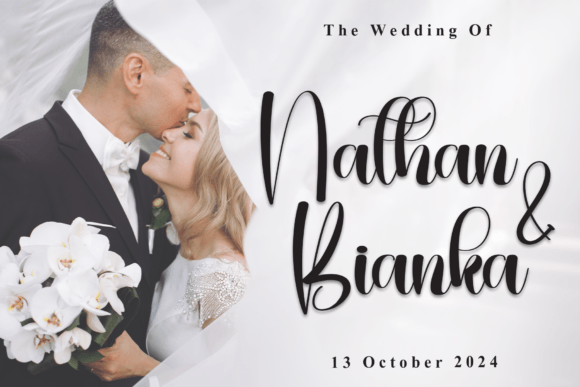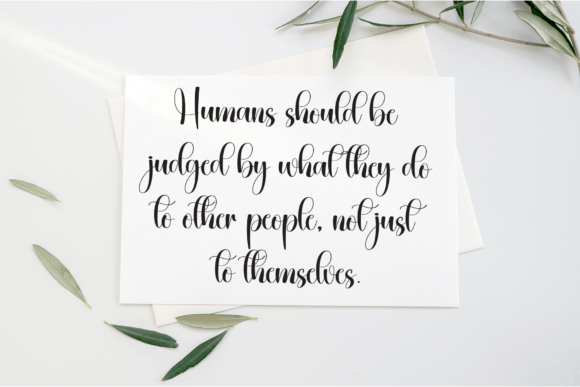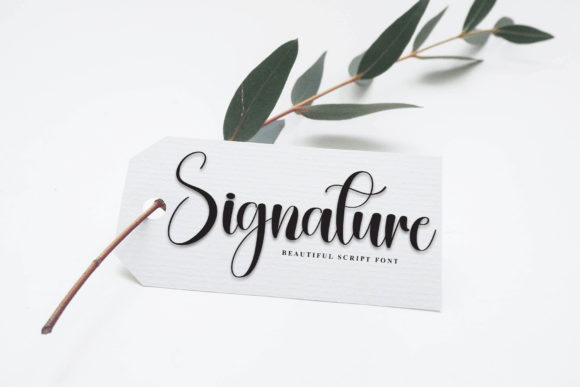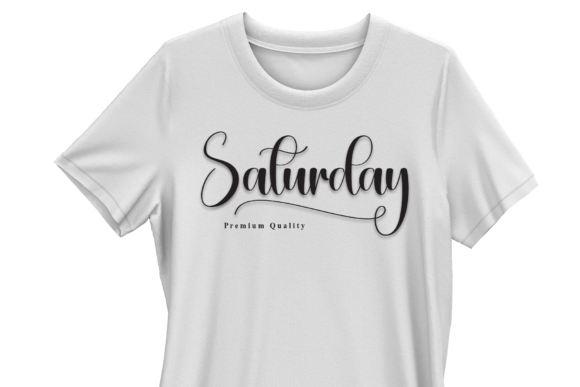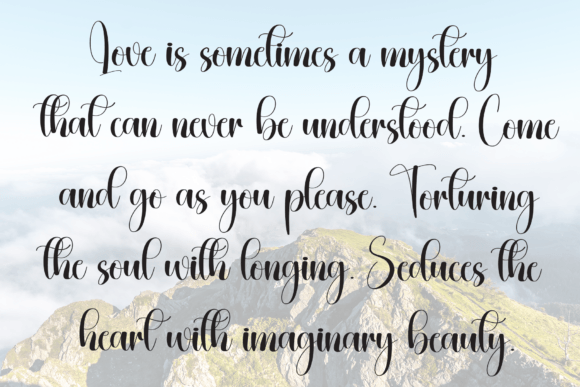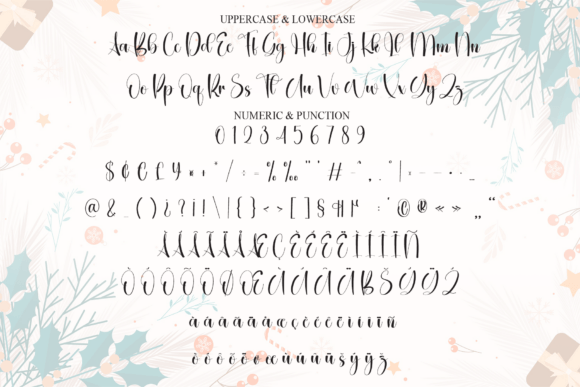
The Magic of Christmasday Font: A Designer’s Holiday Delight
It’s that time of the year again – the season of joy, giving, and of course, designing. I still remember the year I was tasked with creating a holiday card for a client’s family. I had all the ideas, the graphics, and the content ready, but there was one thing missing – the perfect font. That’s when I stumbled upon Christmasday, a charming handwritten font that instantly felt cozy and festive. With its playful, smooth letters, it was exactly what I needed to bring the holiday spirit to life.
An Honest Review of Christmasday Font
So, what makes Christmasday font so special? Let’s dive into the good stuff and a few quirks I’ve discovered.
- ✨ Cozy and festive feel: It’s perfect for holiday cards, decorations, and seasonal projects.
- ✅ Playful and smooth letters: The font’s unique style adds a touch of joy to any design.
- 🎉 Versatile: It can be used for both digital and print projects, from social media graphics to party invitations.
While Christmasday font is amazing, there are a few things to keep in mind:
- 🤔 Limited character set: Some users have reported that the font might not have an extensive character set, which could limit its use for non-English languages or extensive text.
- ⚠️ Not suitable for body text: Due to its decorative nature, Christmasday font is best used for headlines or short paragraphs rather than long blocks of text.
The Backstory of Christmasday Font
While the origins of Christmasday font are somewhat shrouded in mystery, it’s said to have been created by a talented type designer who wanted to capture the warmth and magic of the holiday season. Inspired by traditional holiday cards and decorations, Christmasday font brings a touch of nostalgia and joy to any design.
| Font Name | Christmasday Font |
| Author | Creativewhitee |
Q: Does Christmasday font support OpenType features?
A: Yes, Christmasday font supports OpenType features, including stylistic alternates and glyphs, which can enhance your designs.
Q: Is Christmasday font suitable for body text?
A: No, due to its decorative nature, Christmasday font is best used for headlines, titles, or short paragraphs rather than long blocks of text.